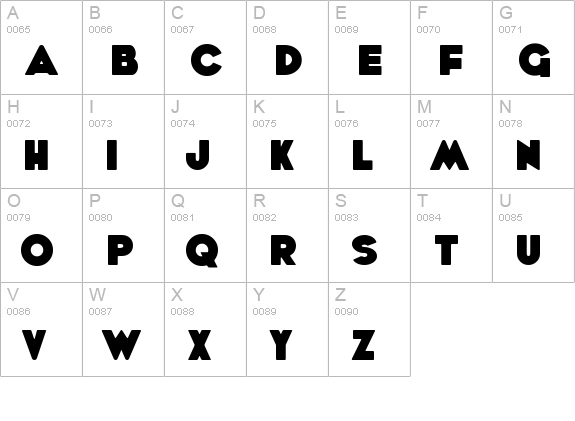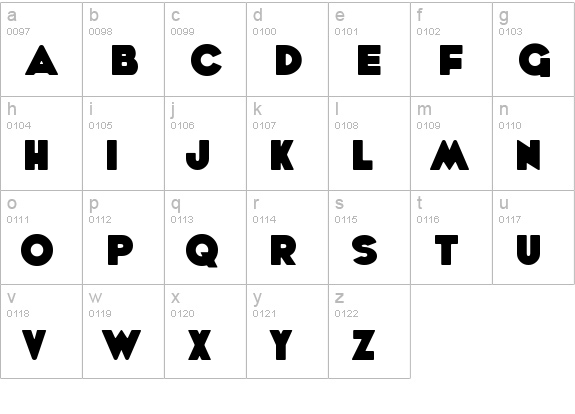
WhoopAss Font Details
Introducing WhoopAss font, a bold and energetic typeface that packs a punch! Designed to make a statement, this font exudes a sense of power and strength. With its strong, thick lines and sharp angles, WhoopAss demands attention and leaves a lasting impression. But that's not all - WhoopAss font is not just visually striking, it is also free! Yes, you read that right, this captivating font is freely available to download at FontsMarket.com. Now, you can bring a touch of fierceness to your projects without breaking the bank. Whether you're designing a poster, creating a logo, or crafting a bold headline, WhoopAss font will be your trusty companion. Its versatility allows it to be used in a variety of design projects, adding an extra layer of impact and personality. Don't miss out on the opportunity to unleash the power of WhoopAss font. Download it today for free at FontsMarket.com and let your creativity soar to new heights. Get ready to make a statement and leave your audience in awe with this exceptional typeface.